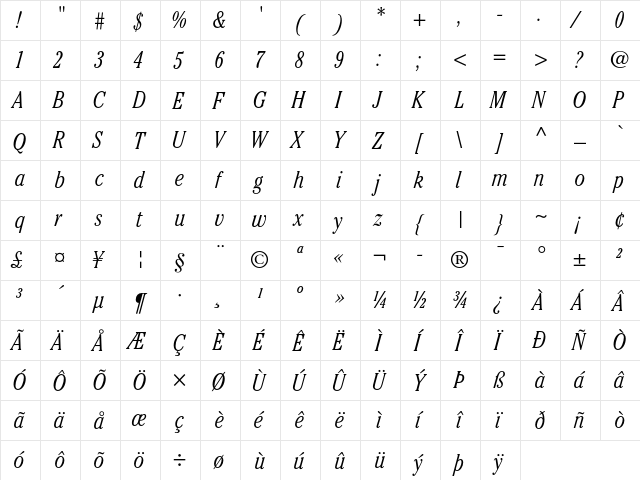
ITC Cheltenham Light Condensed Italic Font Preview
Design Context for ITC Cheltenham Typeface
ITC Cheltenham offers clean, dependable letterforms without strong stylistic allegiance, making it a practical choice for designers who need flexibility. The dynamic lean of this cut emphasises speed and emphasis in any layout. Its slender proportions lend an understated elegance to any composition. The condensed width makes it efficient for tight spaces without sacrificing legibility.